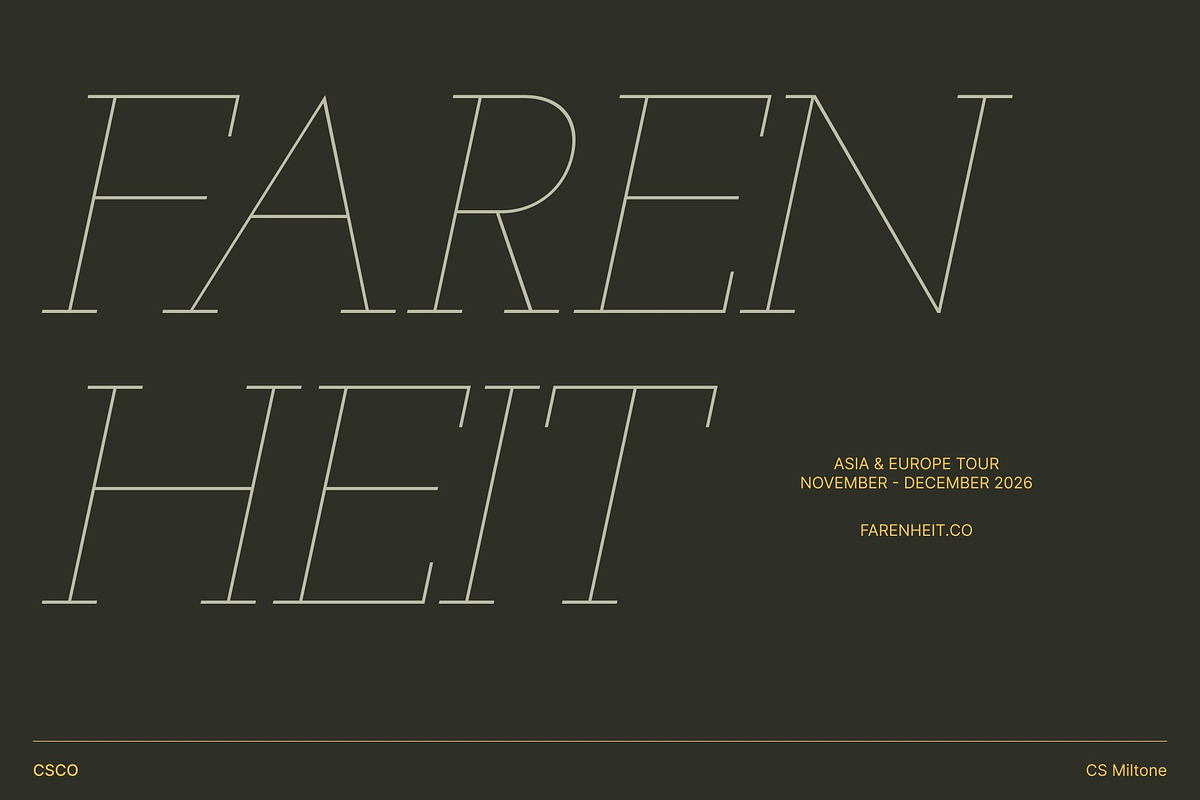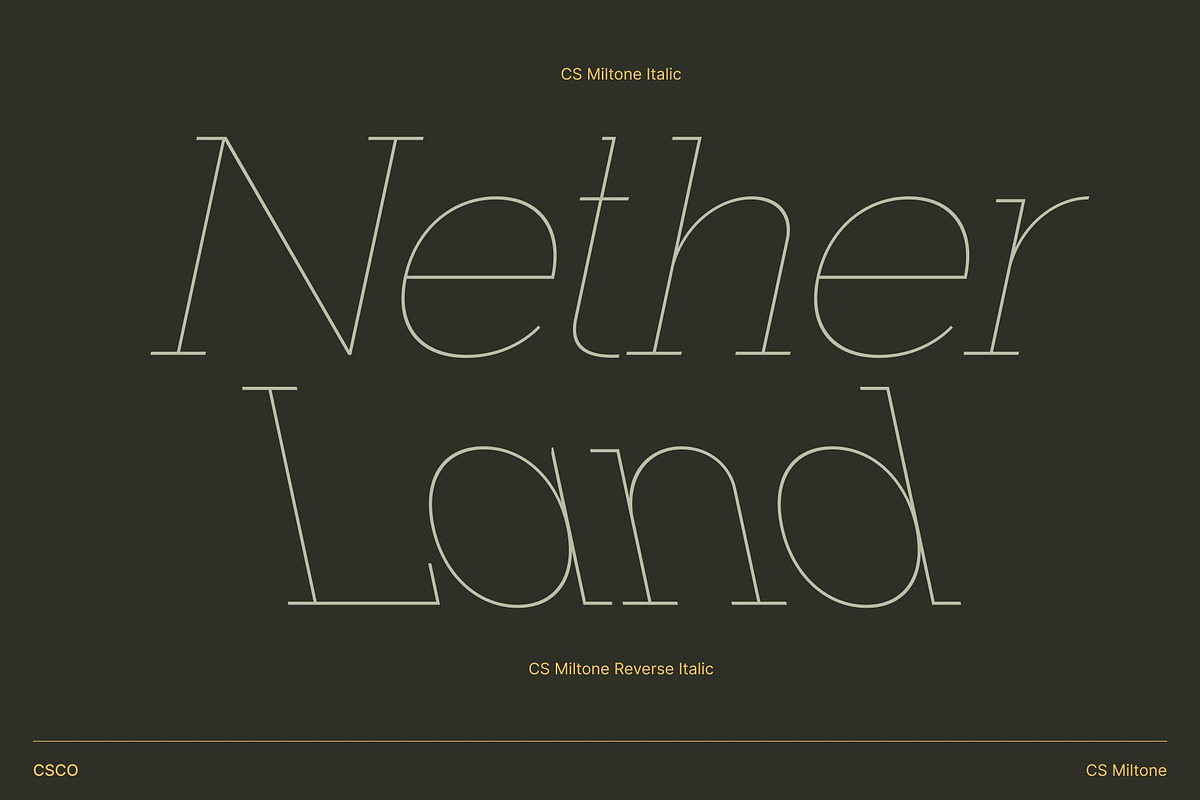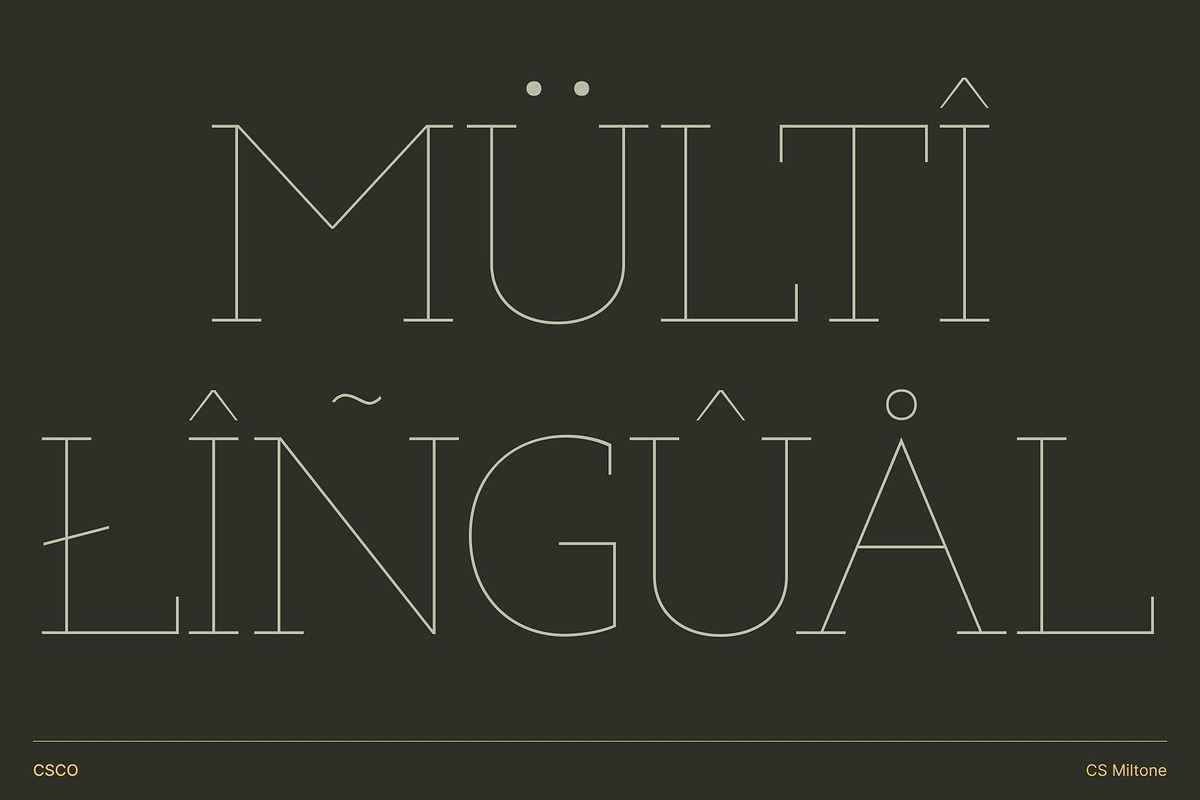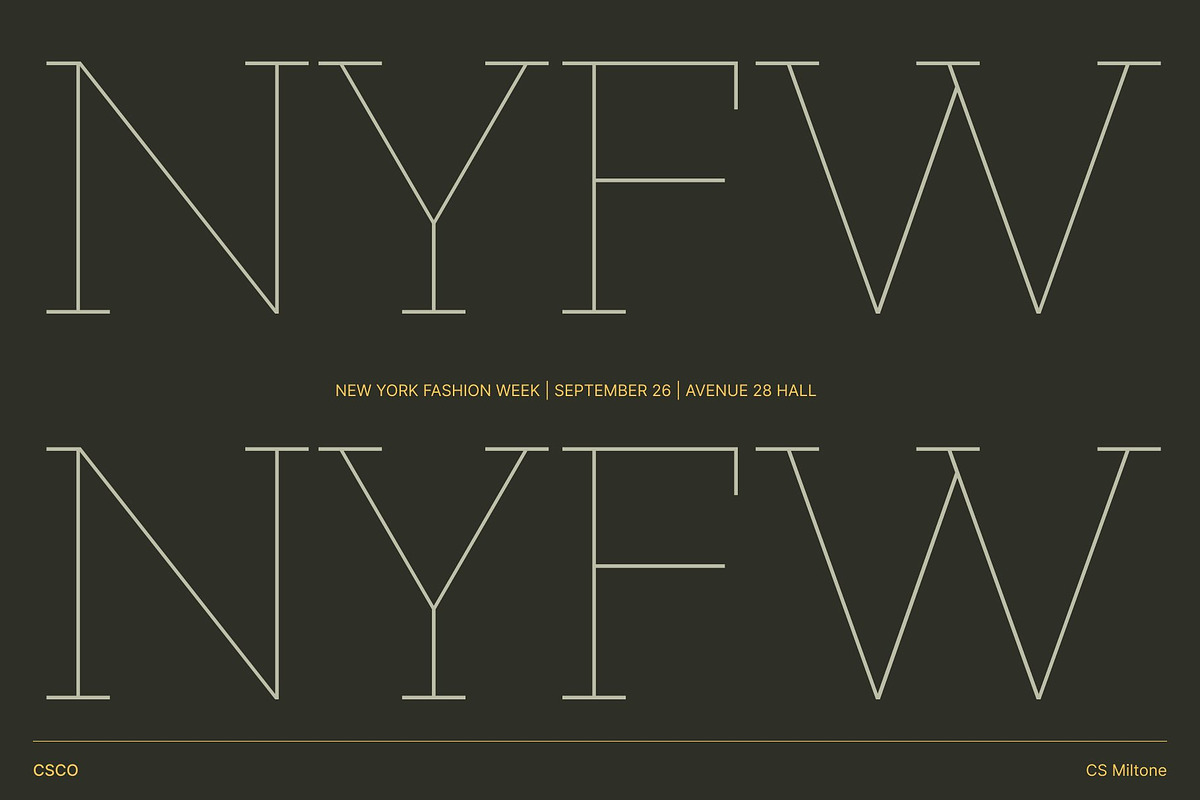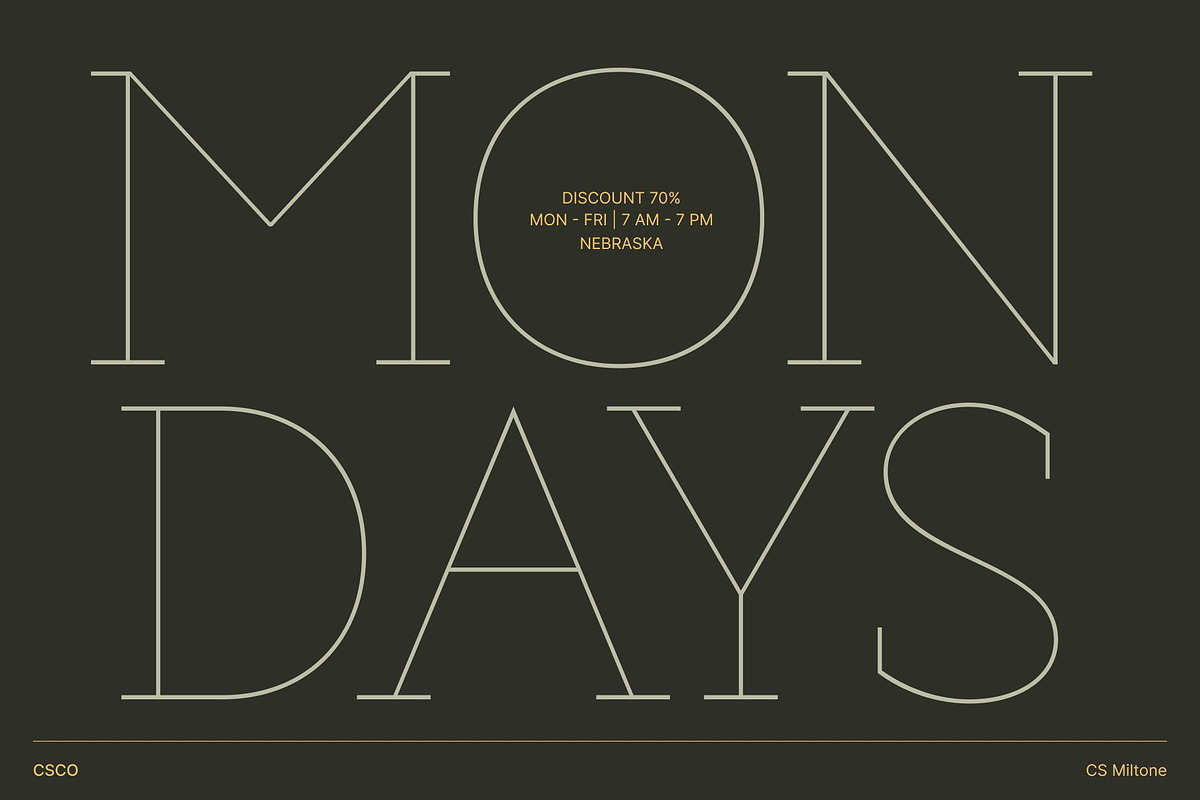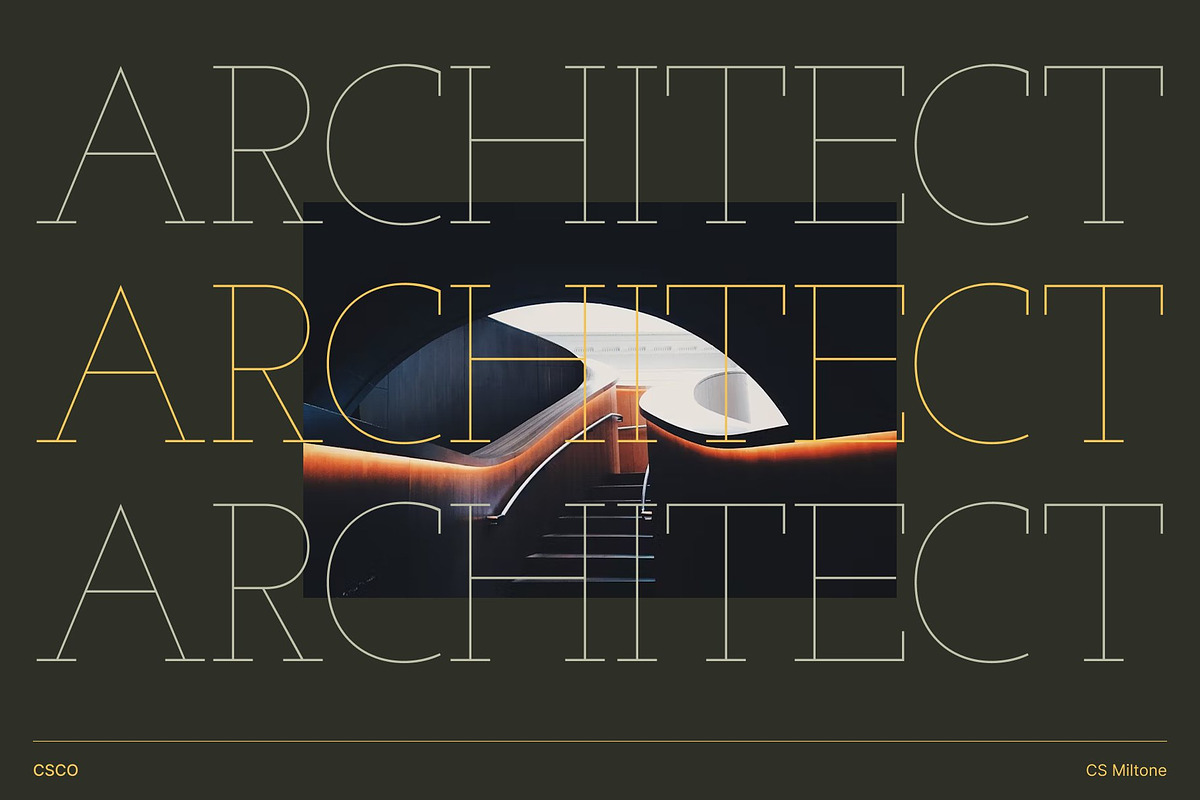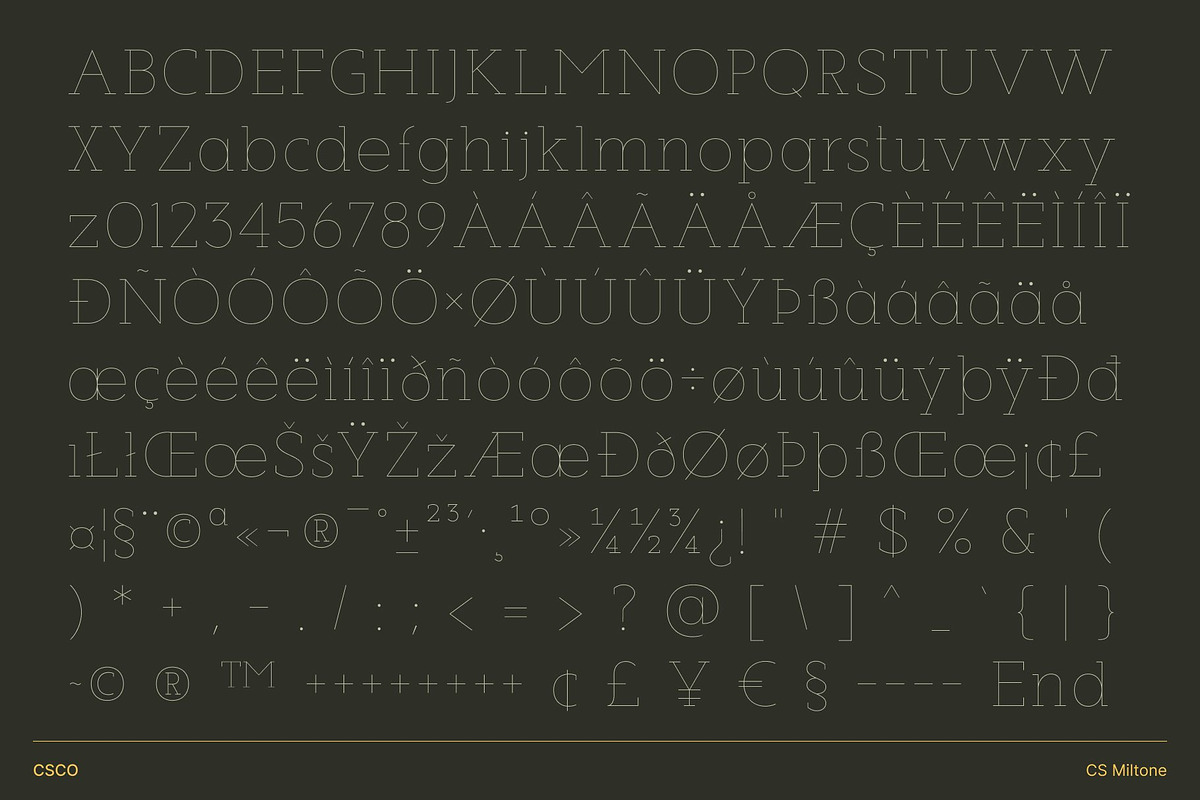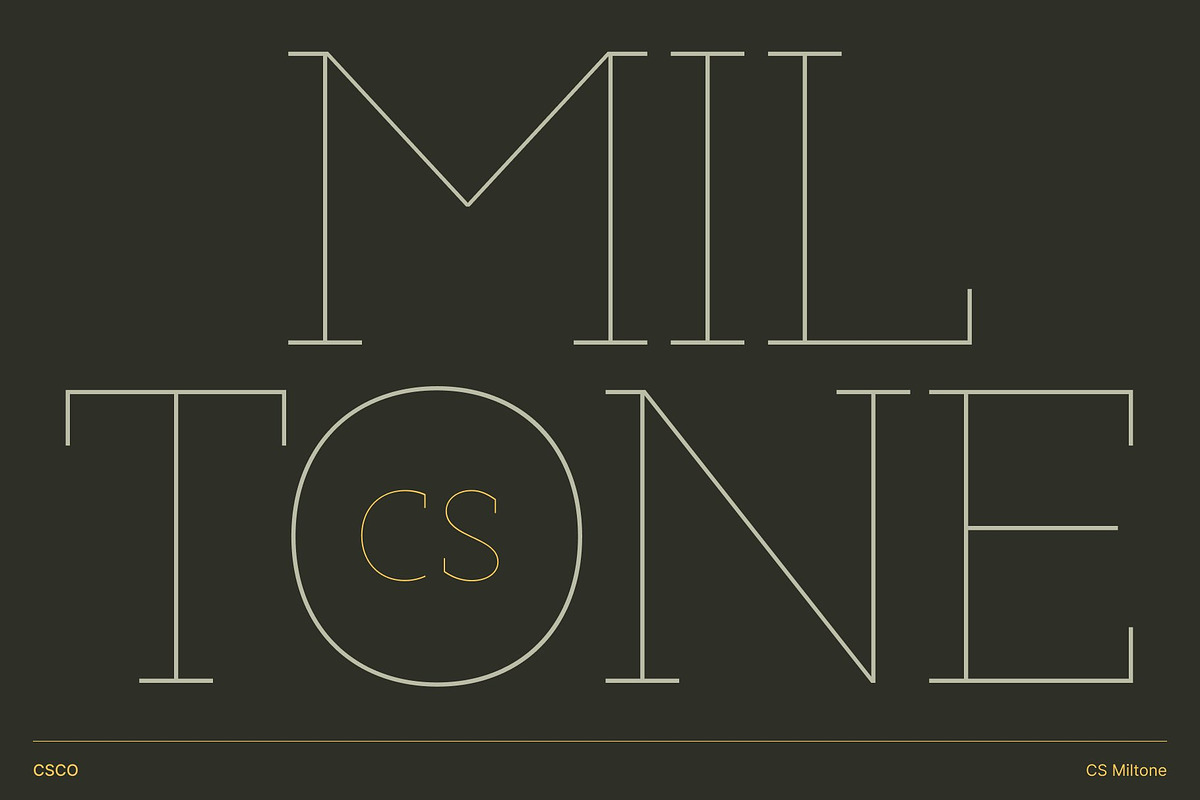
CS Miltone – Thin Slab Serif
CS Miltone – Minimalist Elegance with Slab Serif Precision
Thin Slab Serif Font with Modern Lines This is a modern and clean thin slab serif font designed for minimalist sophistication. Its sleek, precise lines convey clarity and refinement, making it ideal for projects that value understated elegance and contemporary style.
Luxury Ligatures for Distinctive Personality Enhanced with carefully crafted luxury ligatures, this font adds subtle character and uniqueness to every word. These elegant connections elevate the font, giving it a polished, high-end feel suitable for premium design contexts.
Clean and Refined Minimalist Aesthetic The combination of thin strokes, structured slab serifs, and minimalist design creates a versatile font that balances readability with sophistication. Its refined forms make it perfect for editorial layouts, modern branding, and visual compositions that aim for elegance without excess.
Perfect for Logos, Magazines, and Editorial Design This font excels in logos, magazine spreads, and editorial projects that require a minimalist yet distinctive typeface. Its blend of modern clean lines, luxurious ligatures, and subtle personality ensures every design feels sophisticated, stylish, and effortlessly contemporary.